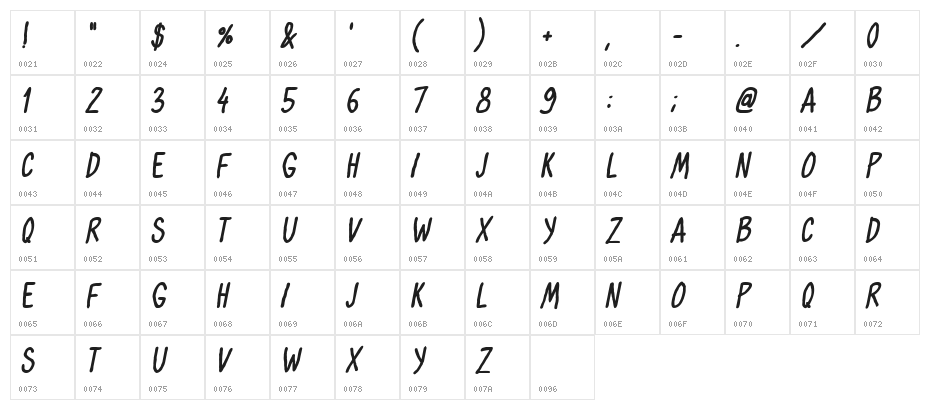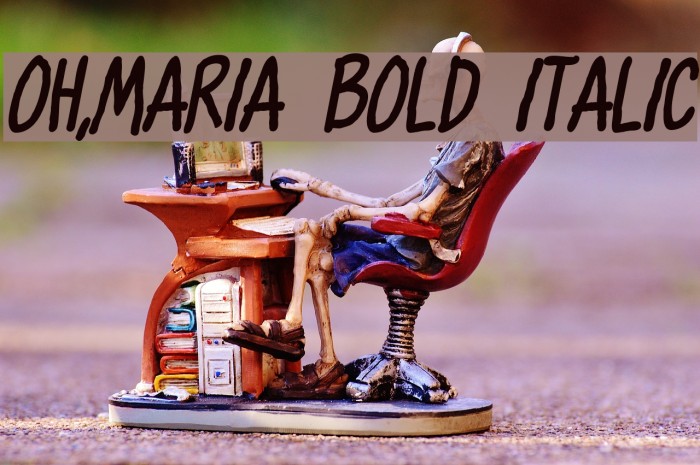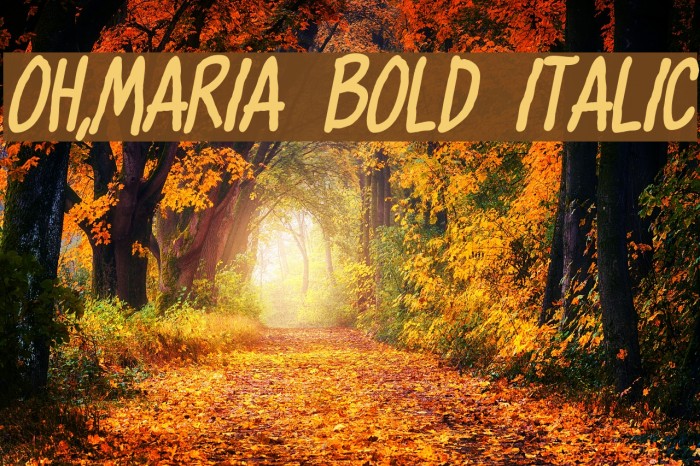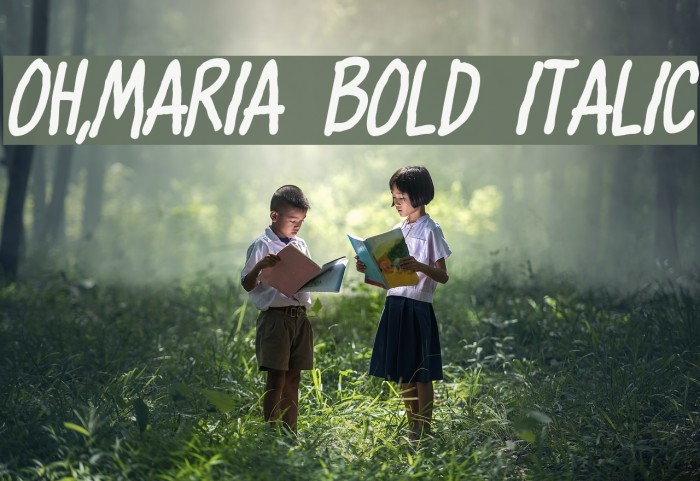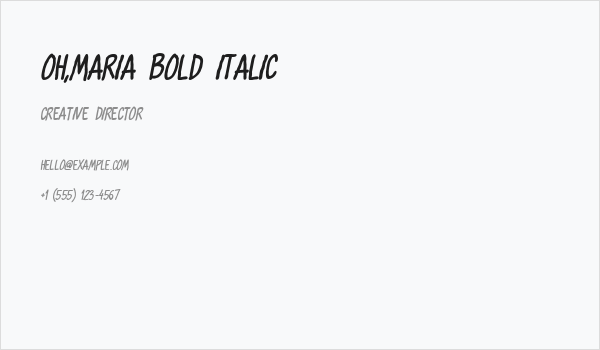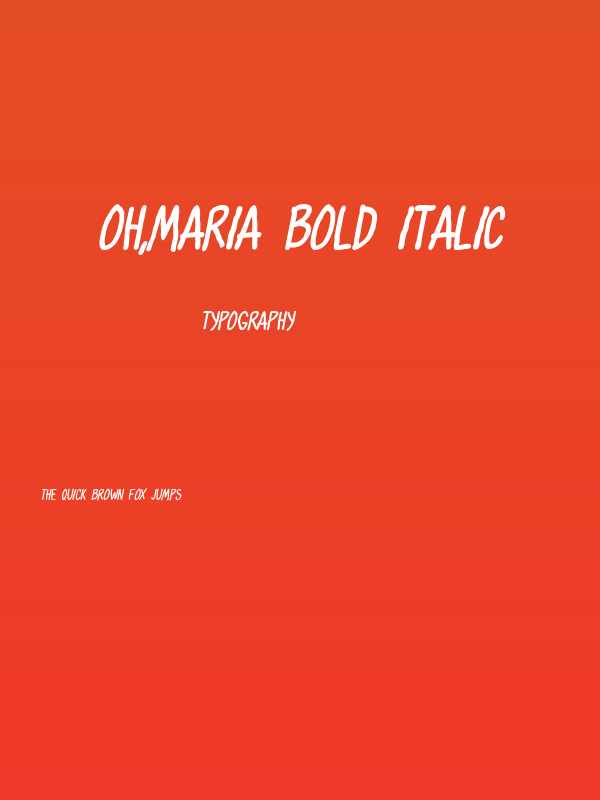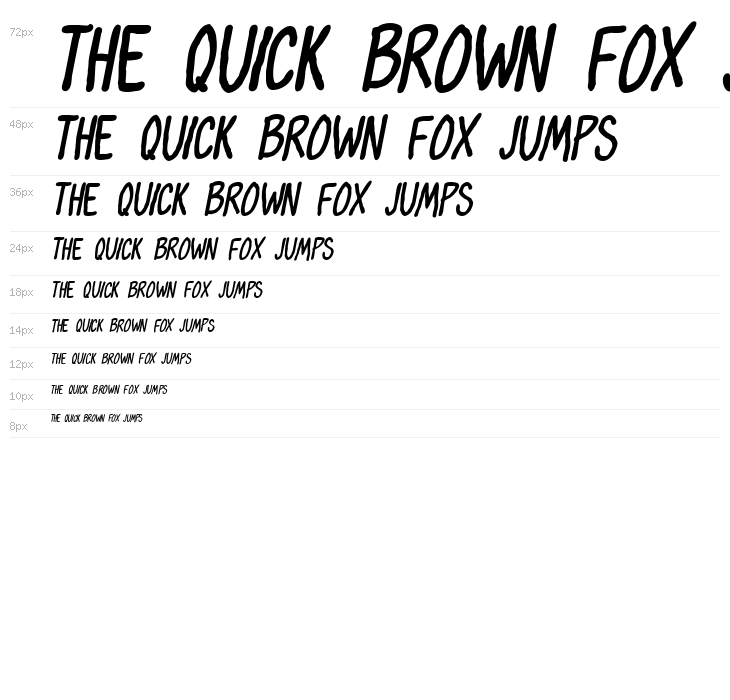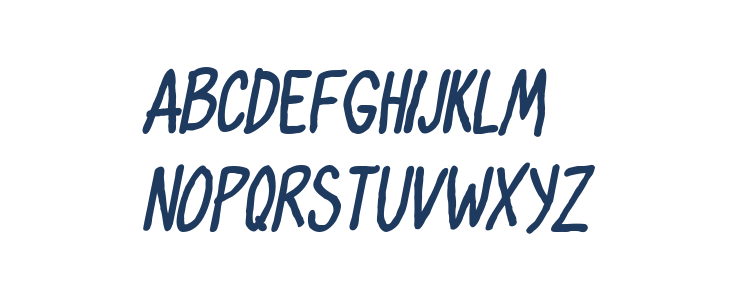
Oh,Maria Bold Italic Font
Oh,Maria Bold Italic Description
This font features a bold and italicized handwritten style, characterized by its energetic and dynamic strokes. The letters have a casual, yet confident appearance, with a slight slant that adds to its informal charm. The uppercase and lowercase letters maintain a consistent flow, while the numerals and special characters complement the overall aesthetic. The strokes are thick and uniform, providing a strong visual impact that is both playful and assertive.
| Proposed Projects | Ideal for projects that require a personal touch, such as greeting cards, invitations, branding for creative businesses, or social media graphics. |